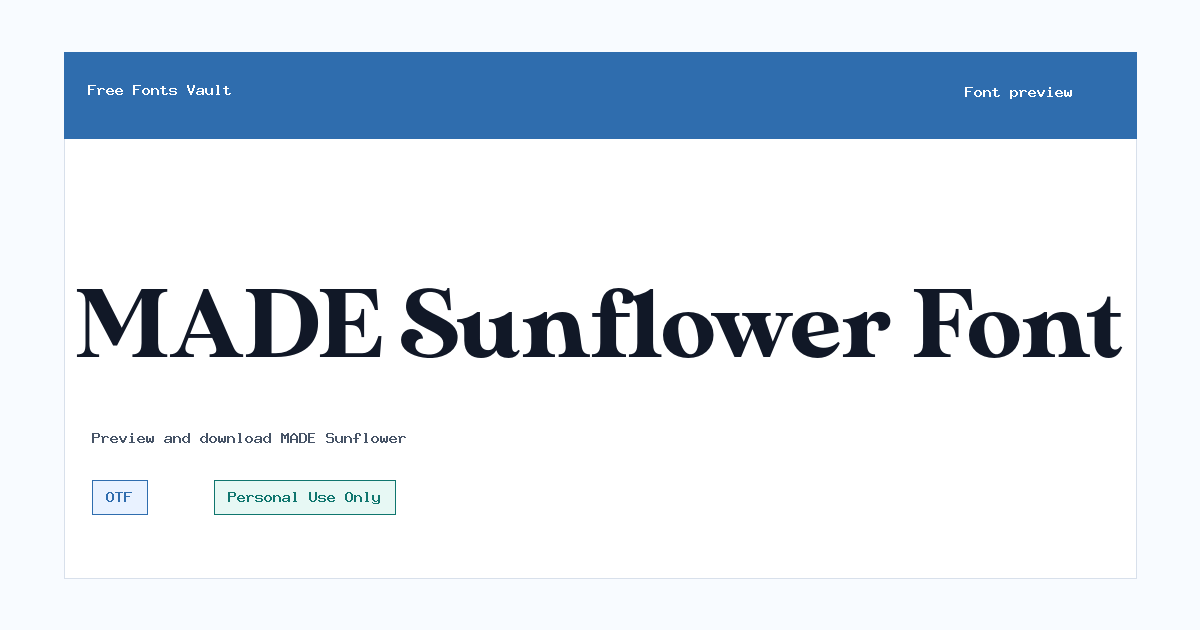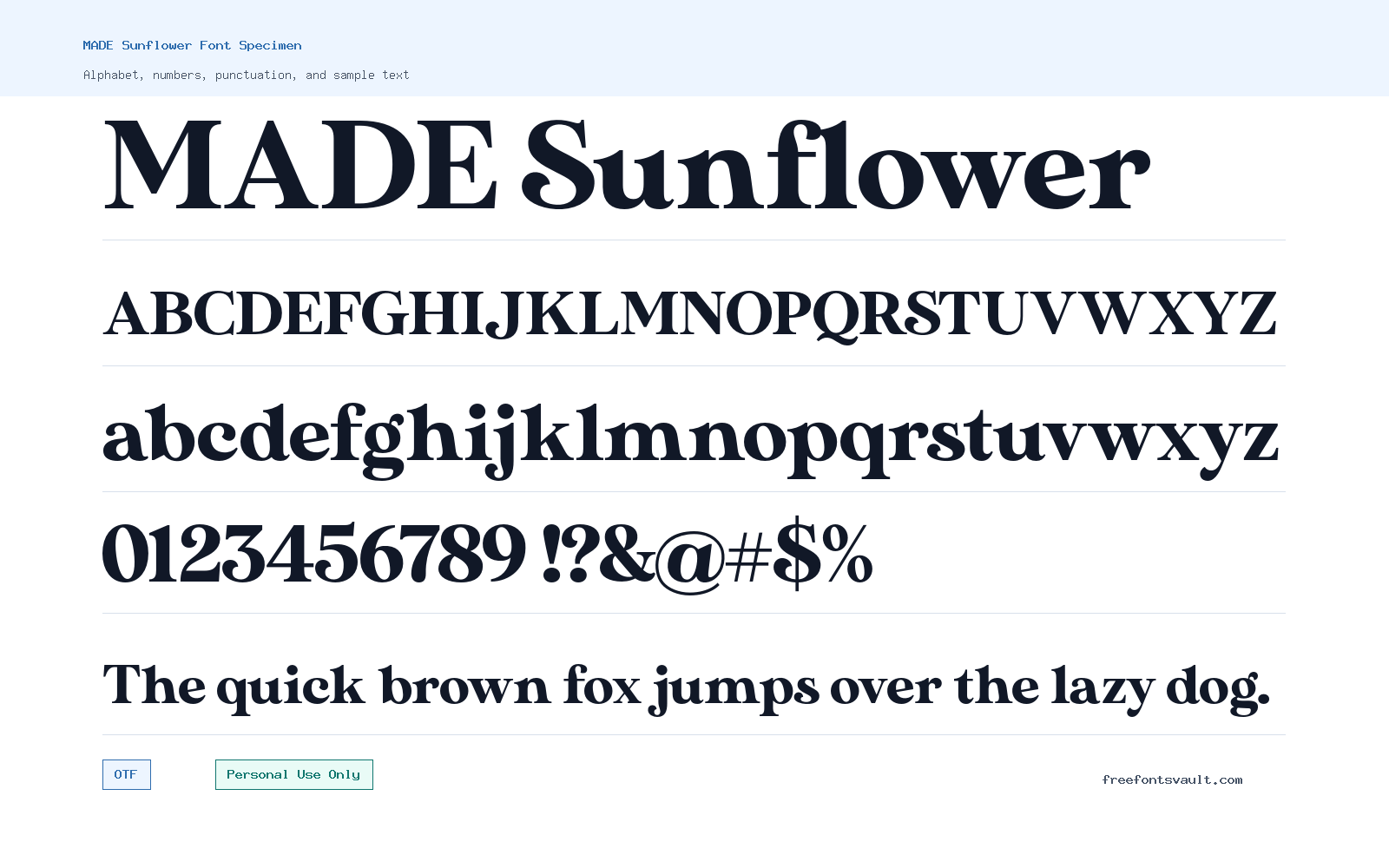
MADE Sunflower
MADE Sunflower is a personal-use display font by MadeType. Use the preview to test its regular OTF style in your own words before downloading.
About MADE Sunflower
MADE Sunflower works best when you need a font with a clear decorative presence rather than a plain text face. Since the download contains a regular OTF style, it is a simple choice for quick mockups, name designs, headings, and short visual text where the font itself is part of the look.
Try it first with the exact words you plan to use. Display fonts can change a lot between short names, all-caps text, and longer phrases, so check spacing, punctuation, and readability in the preview. For body copy or small captions, pair it with a simple sans serif or serif font and keep MADE Sunflower for the main highlight.
- Suited to short display text, title previews, and personal design mockups
- Personal posters, invitations, and social graphics
- Logo drafts, name art, headings, and short decorative titles
What is MADE Sunflower best used for?
It is best tested for short display uses such as headings, posters, invitations, name designs, and social graphics.